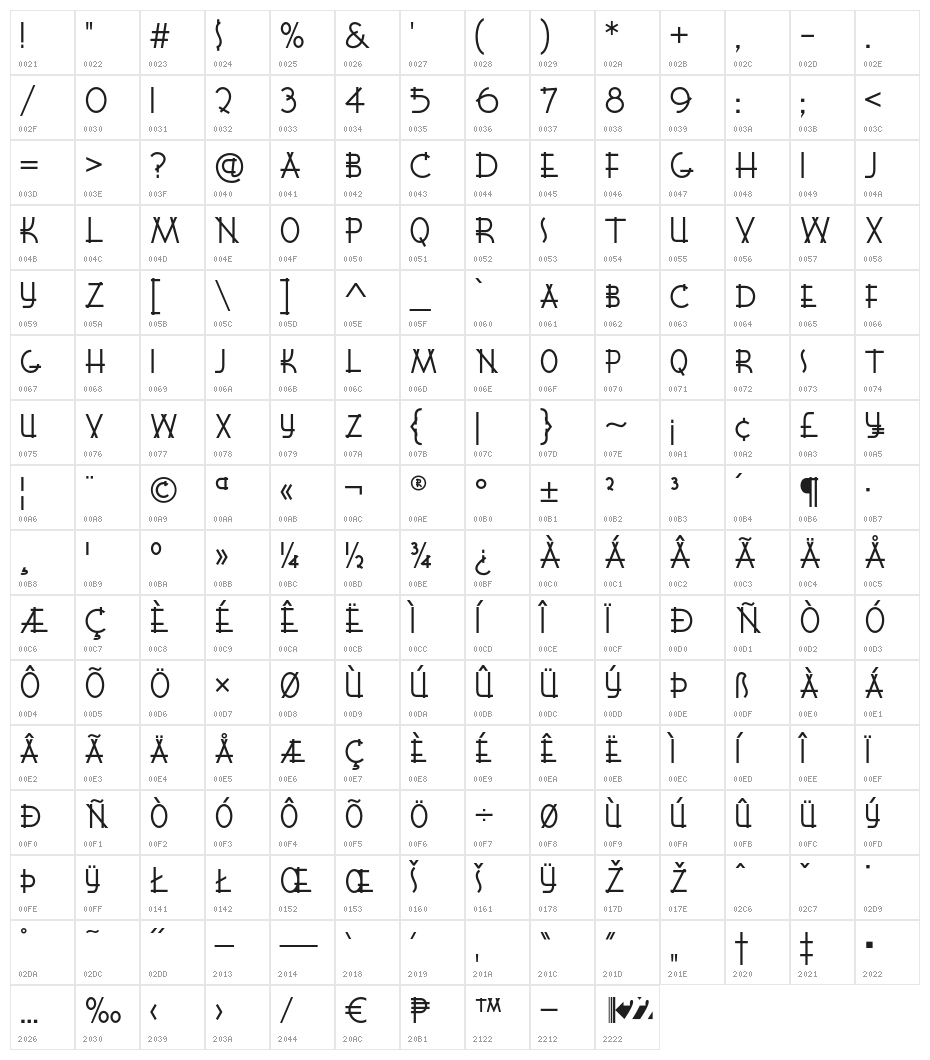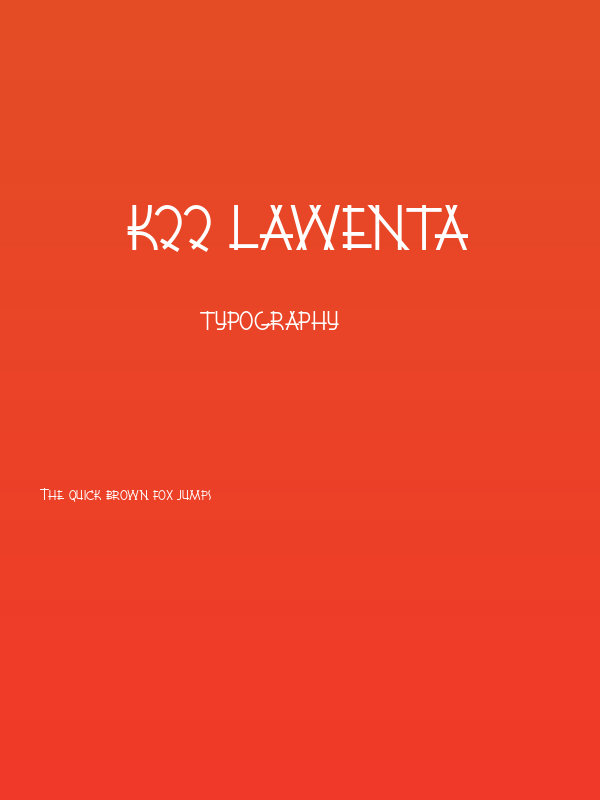
K22 Lawenta Font
K22 Lawenta Description
This font features a unique and modern design with geometric elements and distinct crossbars that give it a futuristic feel. The uppercase letters are bold and structured, with sharp angles and clean lines. The lowercase letters maintain a consistent style, offering a harmonious blend with the uppercase. Numbers are equally stylized, with a clear and readable format. Special characters are thoughtfully designed to match the overall aesthetic, making this font versatile for various applications. Its distinct appearance makes it suitable for creative projects that require a modern and edgy look.
| Proposed Projects | Ideal for branding, posters, album covers, and digital media that require a modern and edgy aesthetic. |